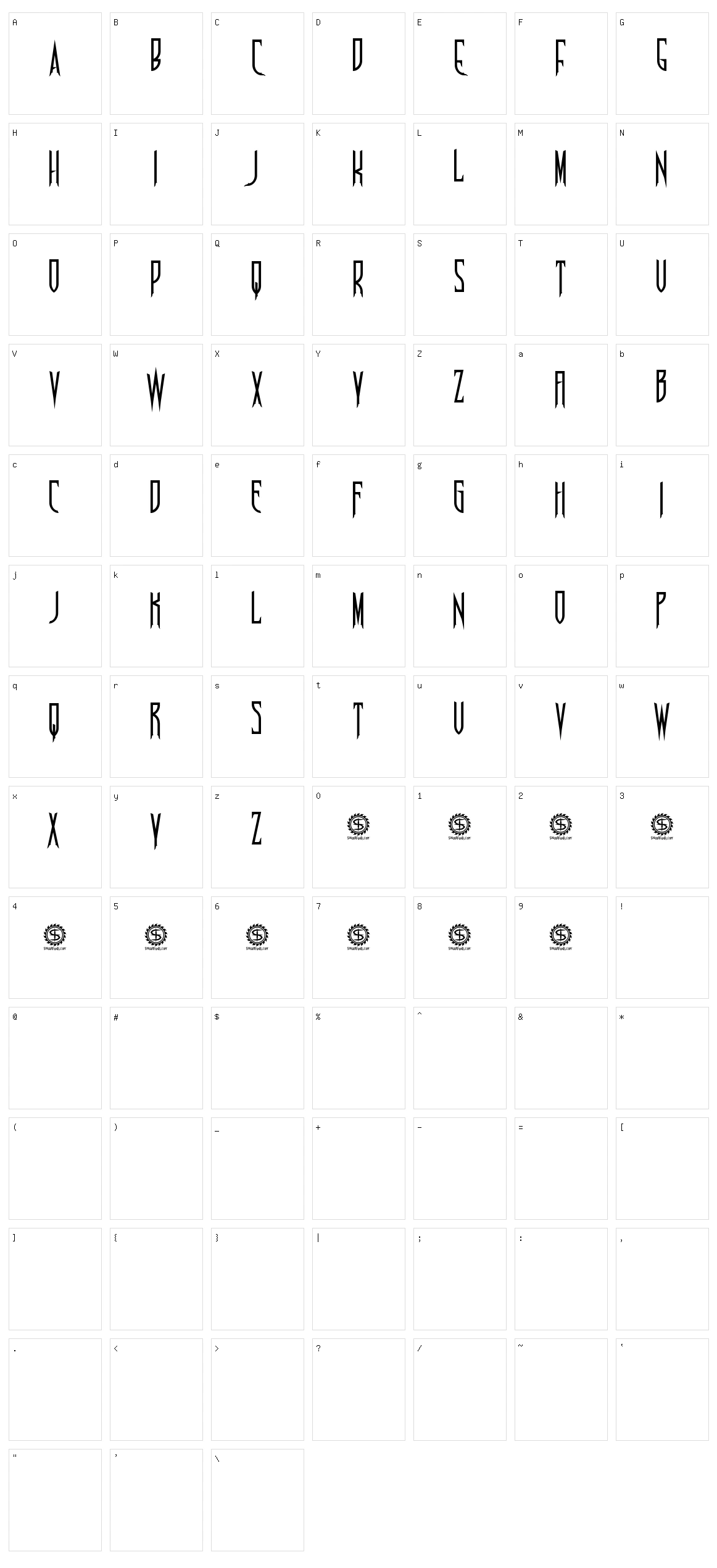
The free font Nosferotica is carefully designed by Sinister Fonts, showcasing a thoughtful balance of creativity and usability and falls under the Horror font style. When you download the ZIP file, it contains only 12.1 KB of font files, making it lightweight and quick to download. Please review the license details below to understand permitted usage and distribution rights. If license information is not available, we recommend using this font for personal projects only or contacting the author directly for commercial usage permissions.